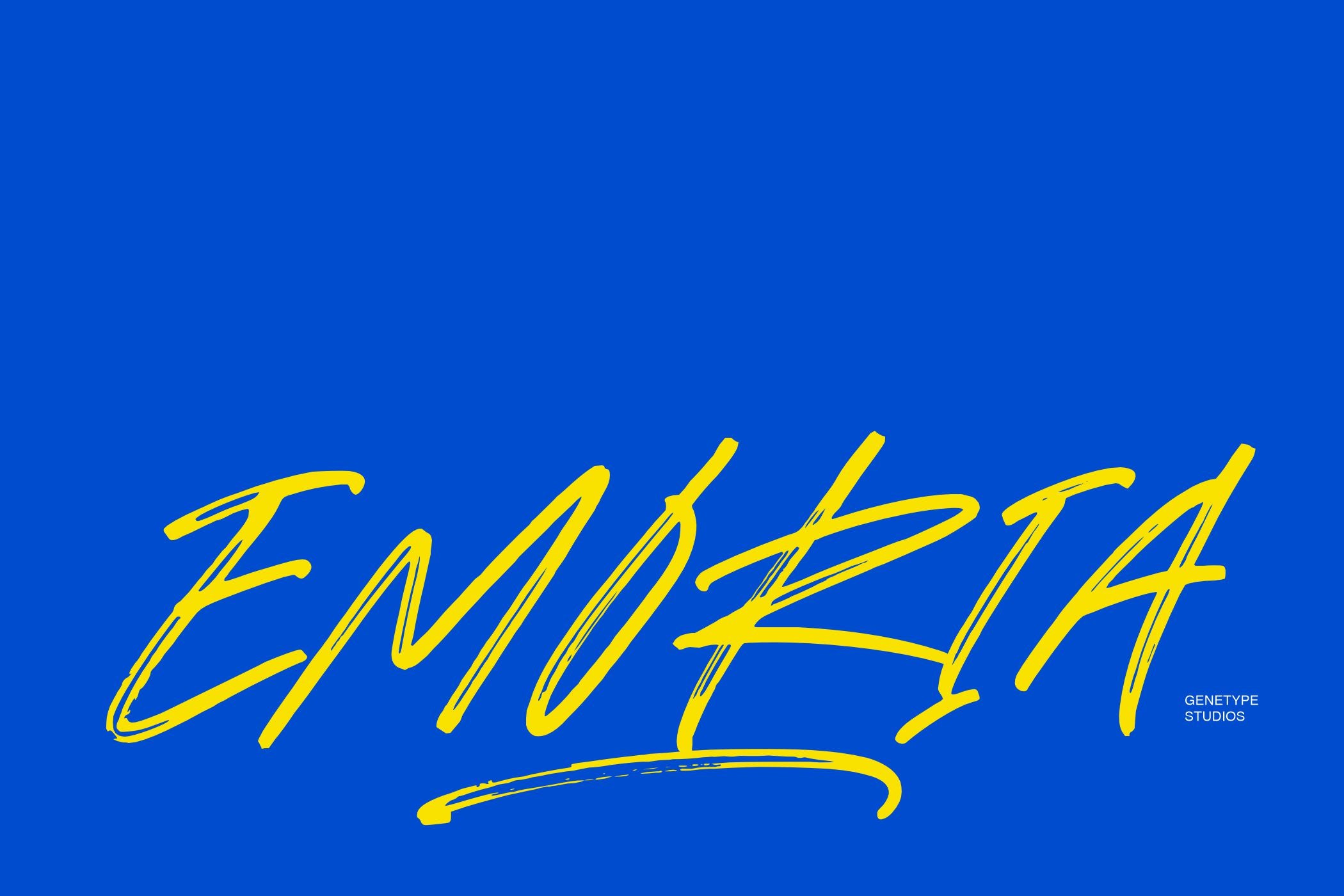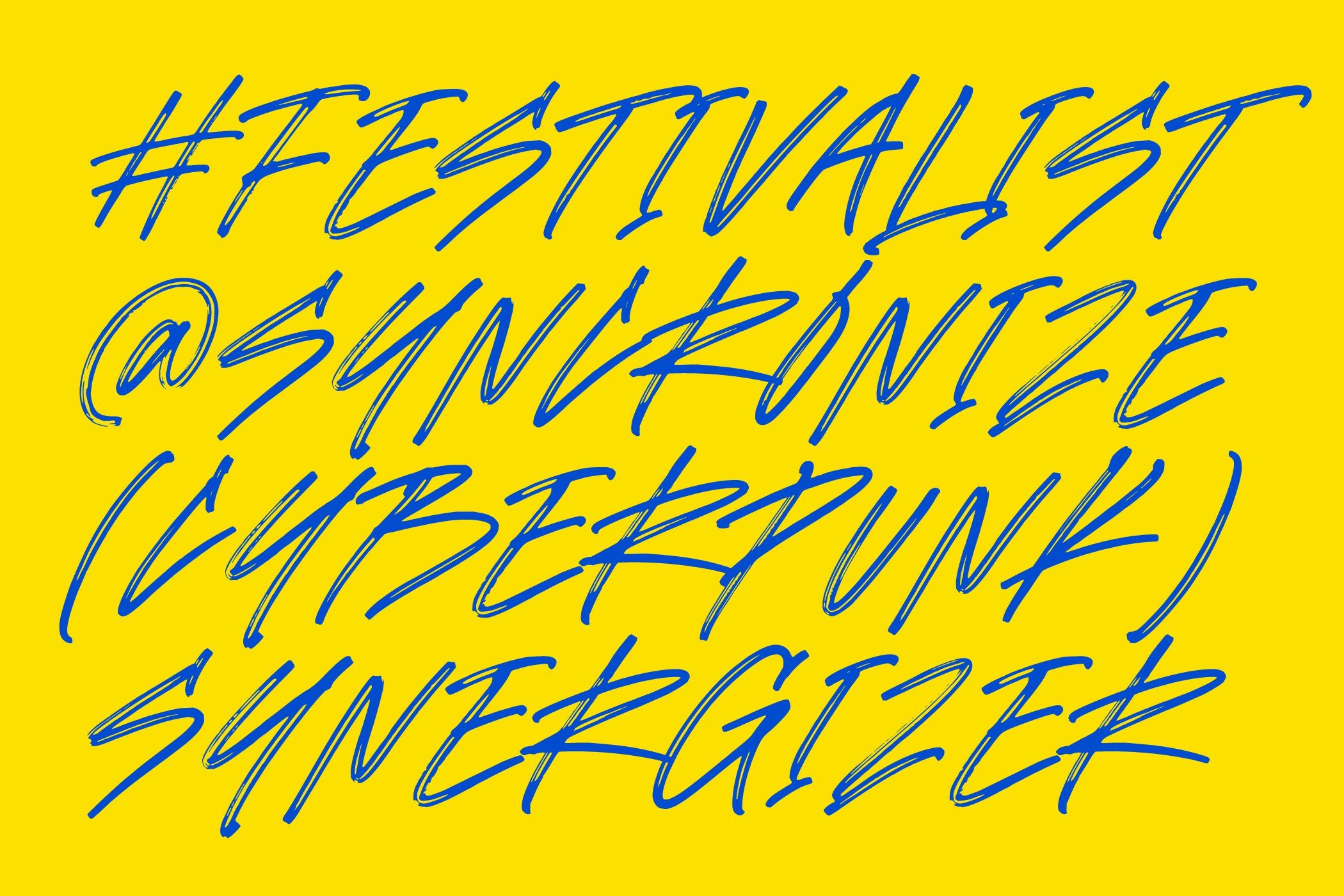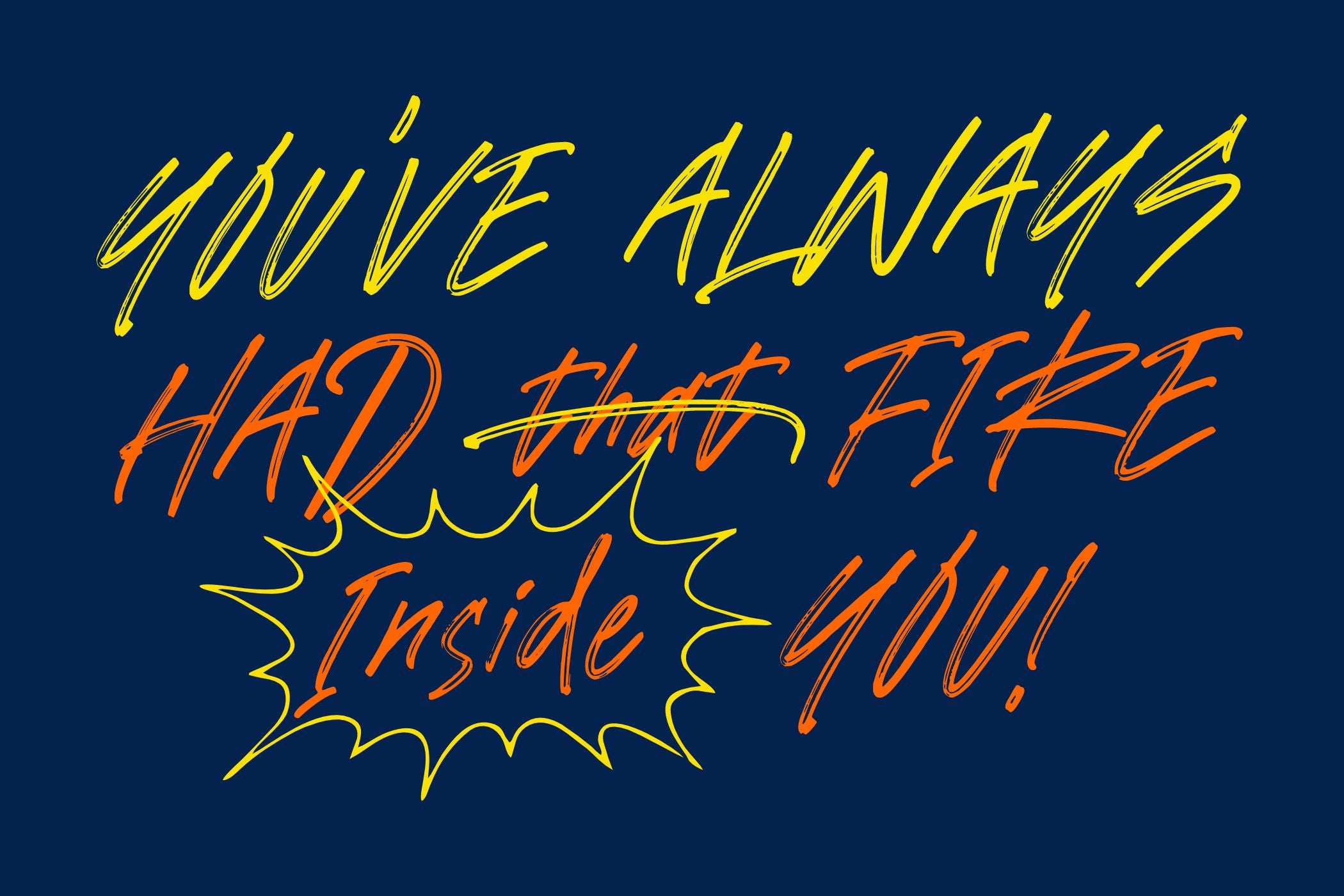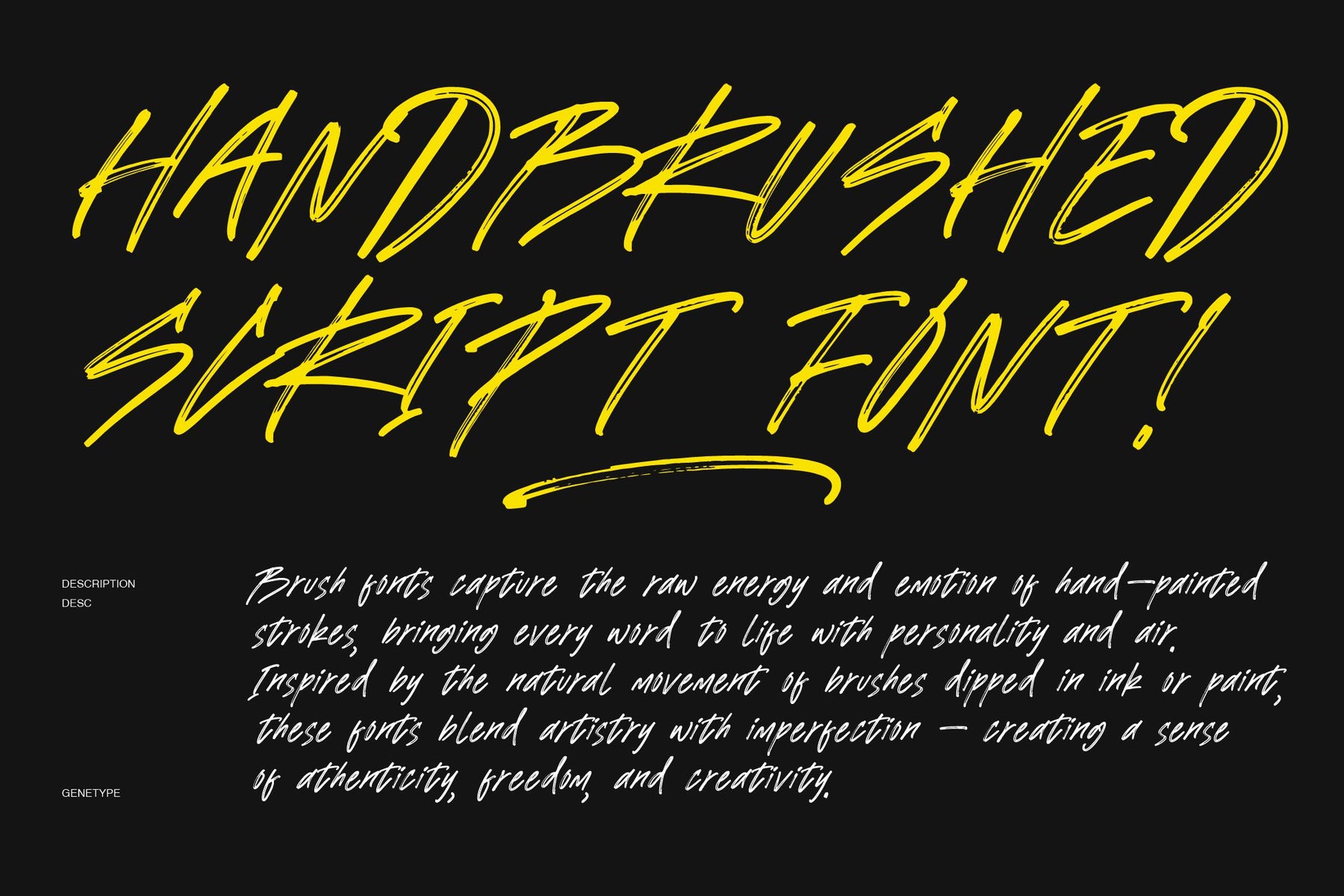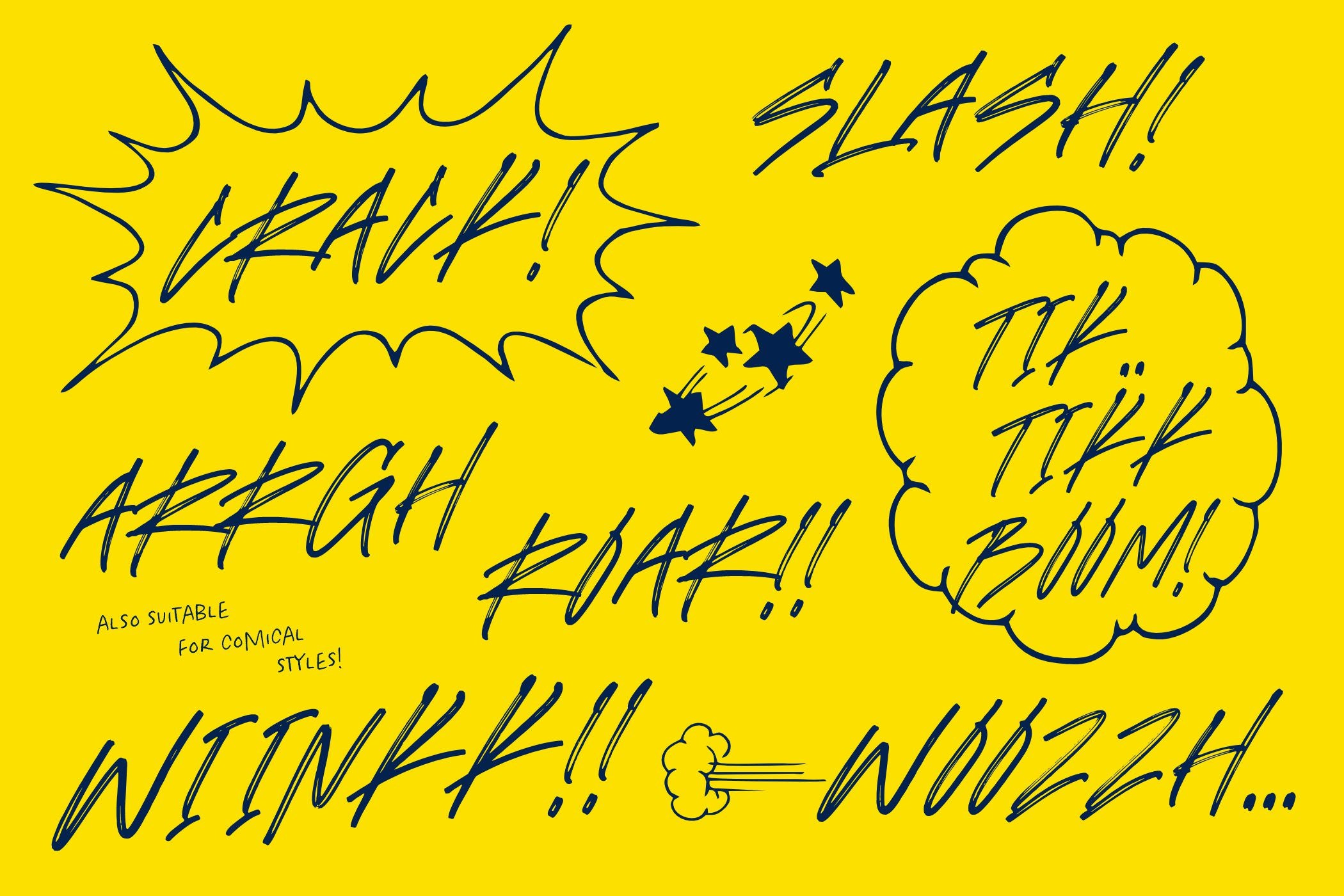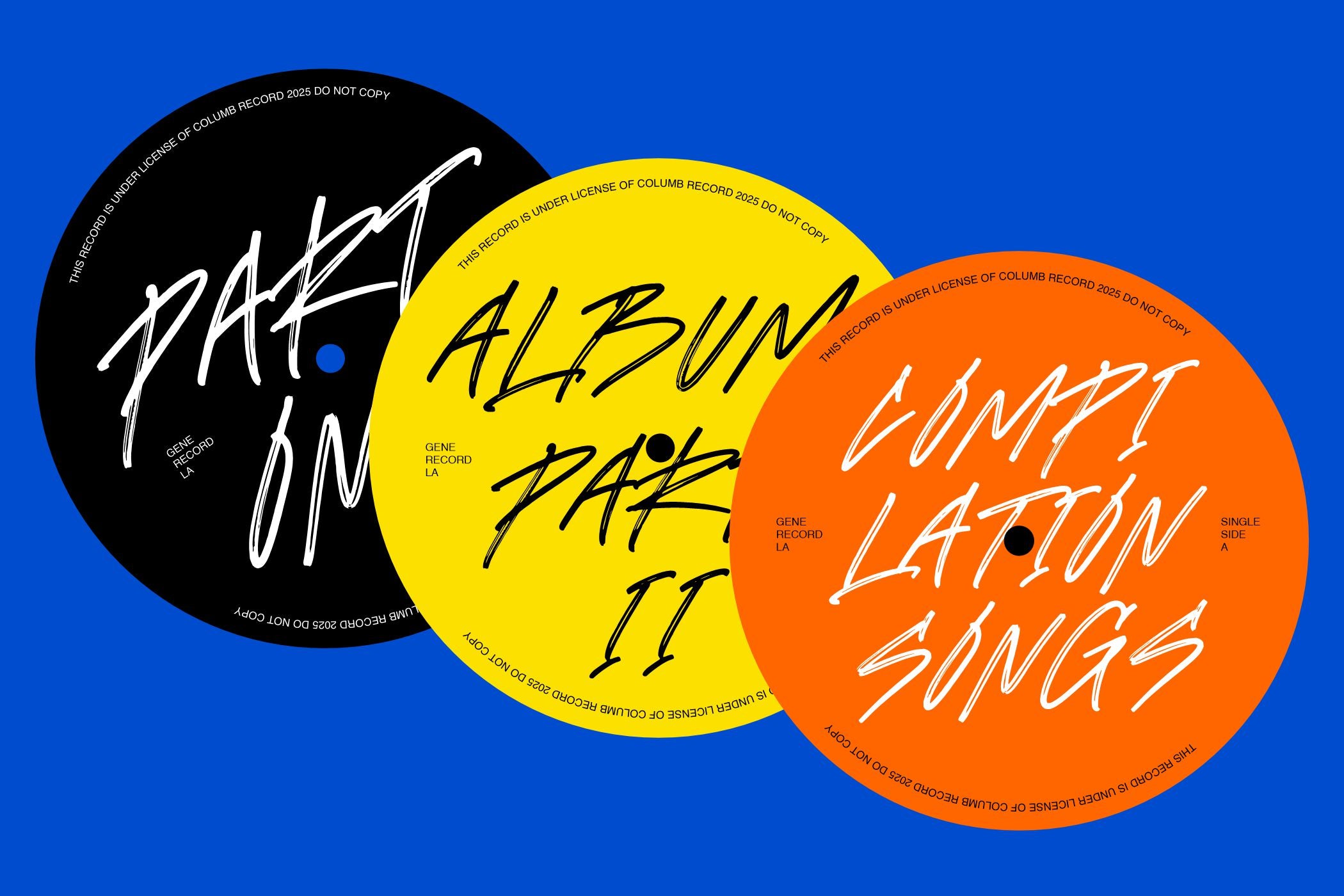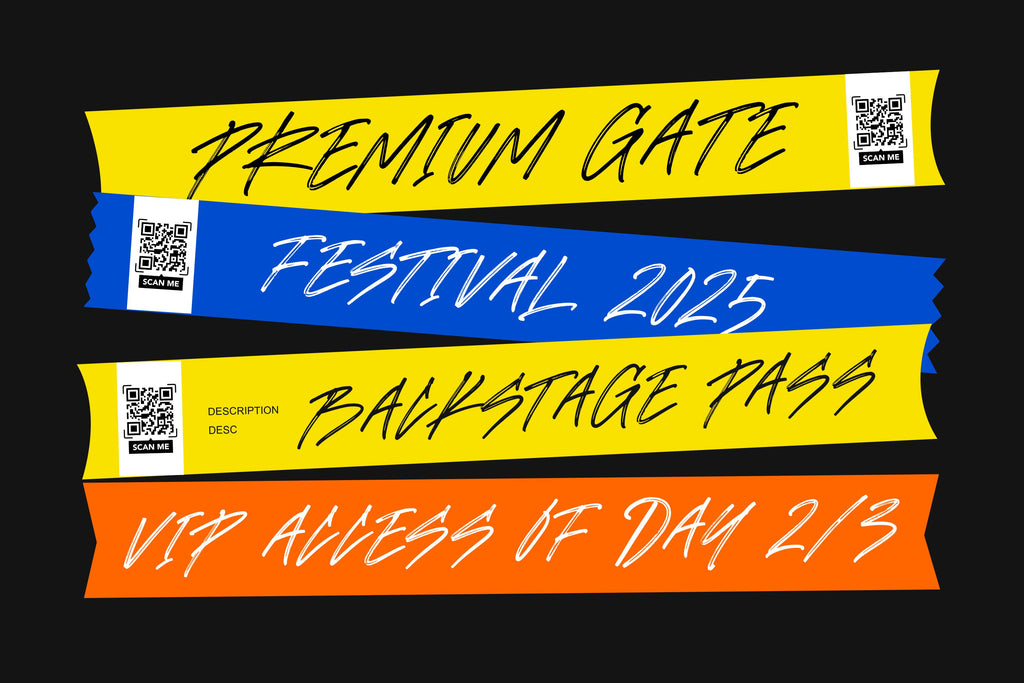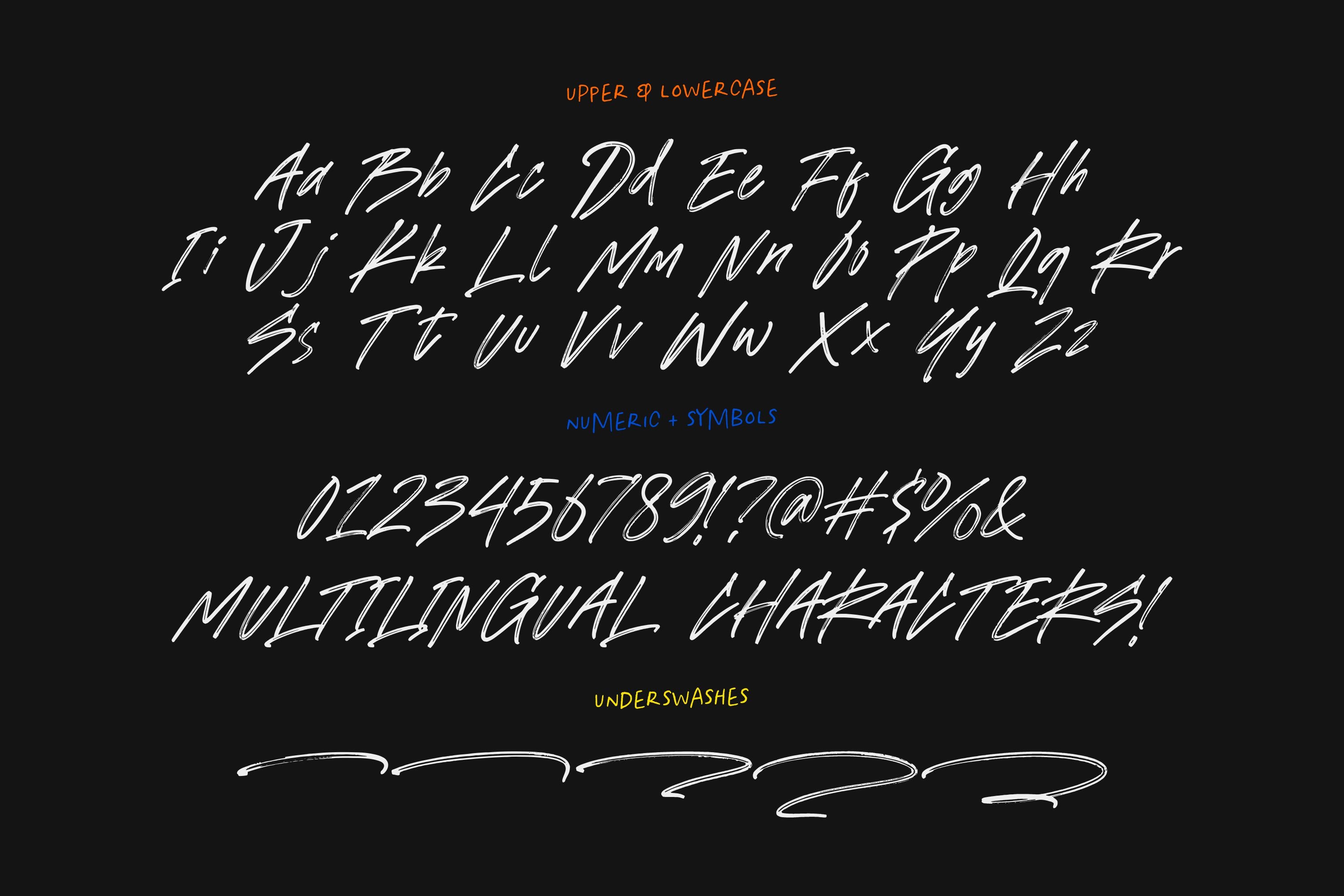
Emoria – Hand-Brushed Expressive Script Font
Introducing Emoria created by genetypeco – Expressive Brush Script Font
Emoria captures the raw energy of hand-painted strokes — bold, fast, and full of movement. This expressive brush font is designed to bring an authentic, handcrafted feel to your design projects, combining artistry with attitude.
Every letter in Emoria feels alive, with dynamic textures and imperfect brush details that give your typography a natural and spontaneous look. Perfect for music posters, streetwear logos, movie titles, branding, editorial design, or social media visuals, Emoria adds intensity and confidence to any composition.
The font comes with uppercase, lowercase, numerals, punctuation, and multilingual support, available in OTF, TTF, and WOFF formats. Whether you're creating festival branding, bold advertising, or a high-energy album cover — Emoria will make your message stand out loud and clear.